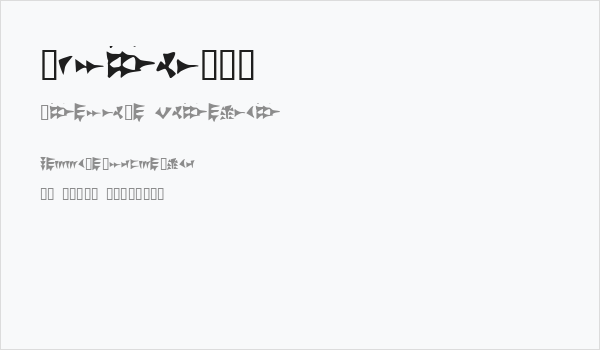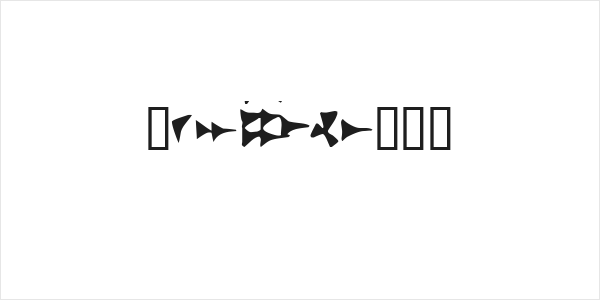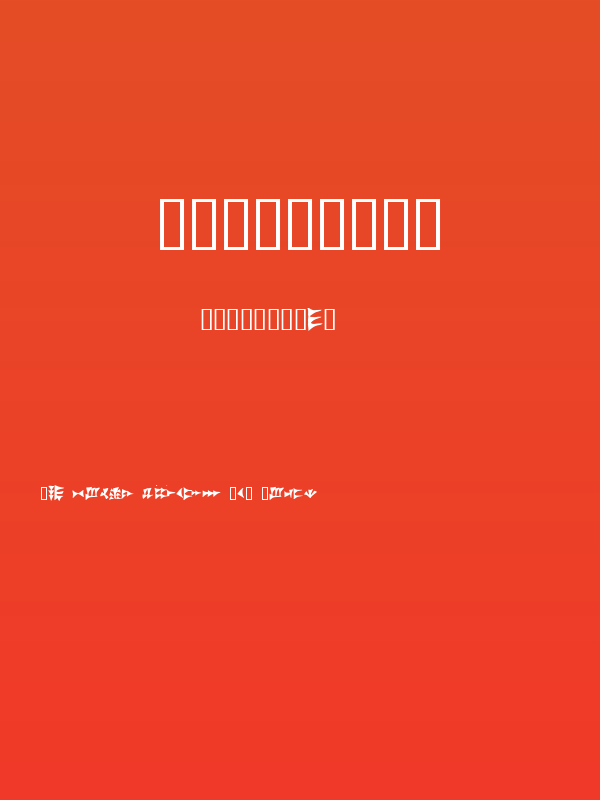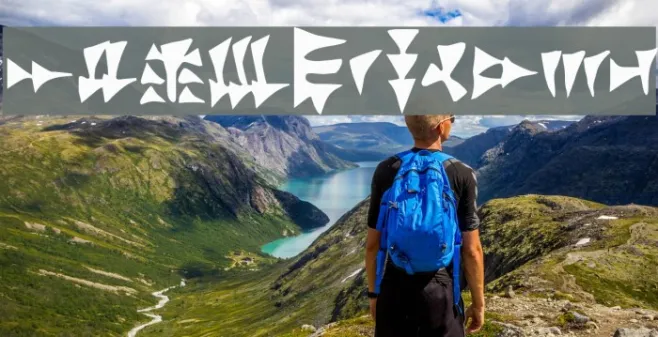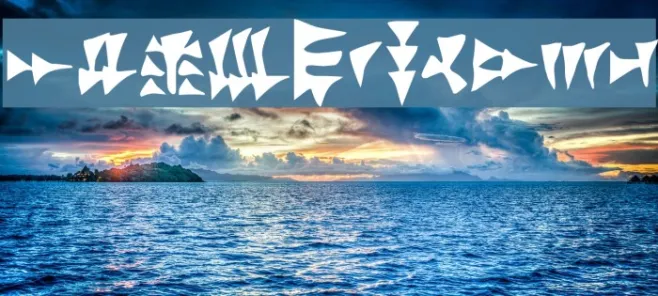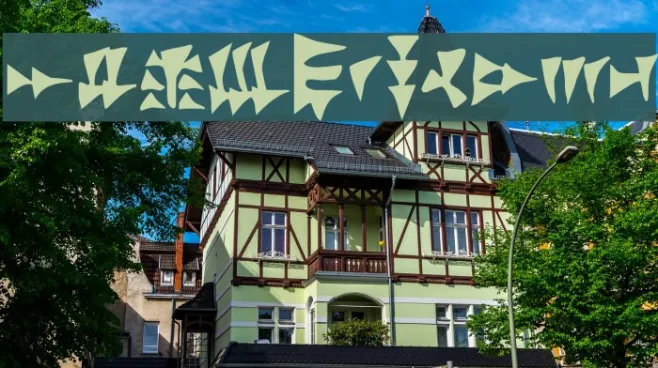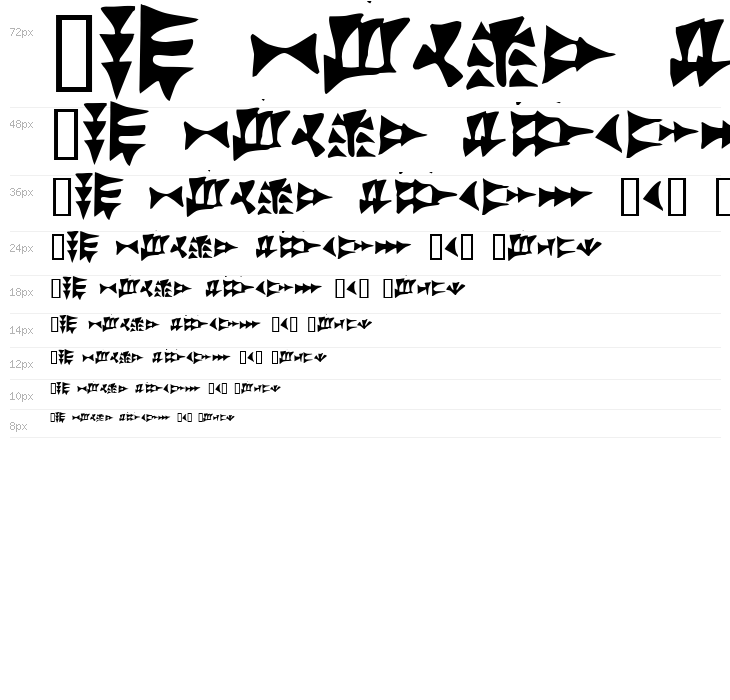
Ugarit!" Font
Ugarit!" Description
This font is inspired by ancient cuneiform script, featuring angular and geometric shapes that mimic the look of historical inscriptions. The characters are bold and striking, with a distinct emphasis on sharp edges and triangular forms. Each letter is crafted to resemble the carved appearance of ancient tablets, providing a sense of historical depth and authenticity. The font is highly decorative, making it suitable for projects that require a touch of antiquity or cultural richness. Its unique style captures the essence of early writing systems, offering a visually captivating experience.
| Use Case | Logos, Headlines, Themed designs |
| Proposed Projects | Ideal for historical documentaries, museum exhibits, educational materials, or themed event invitations. |